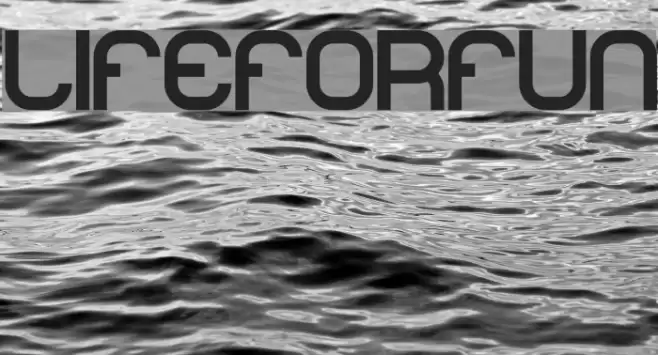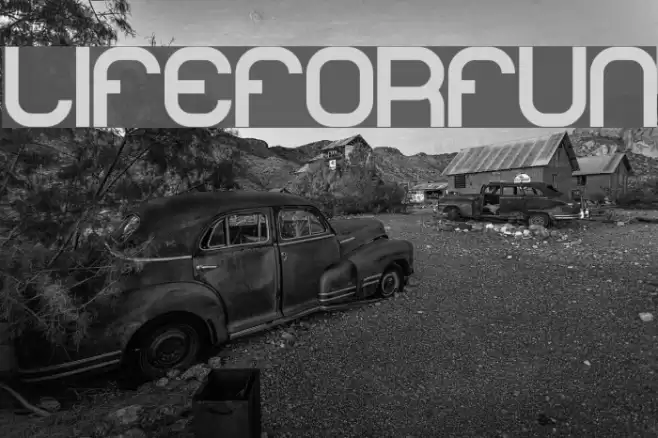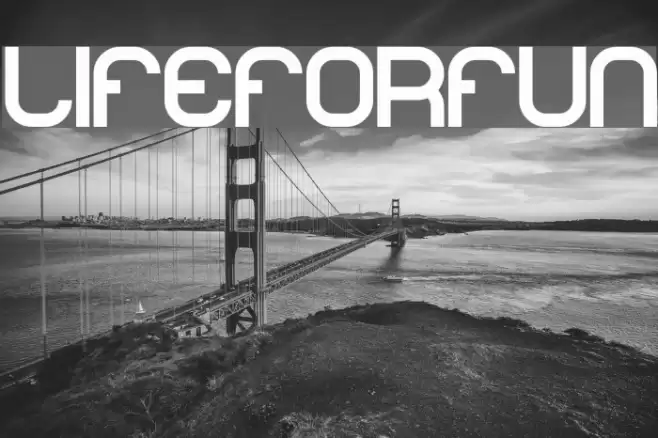
lifeforfun Font
lifeforfun Description
This font features a modern and futuristic design with a geometric structure. The characters are composed of bold, rounded lines that create a sense of continuity and flow. The uppercase letters have a uniform height, while the lowercase letters maintain a consistent style, enhancing readability. The numerals are designed to match the overall aesthetic, ensuring a cohesive look across all characters. The special characters are distinct yet harmonize with the rest of the font, making it versatile for various applications.
A modern, geometric font with bold, rounded lines and a futuristic style from Uncategorized fonts.
- Proposed Projects: Ideal for technology branding, futuristic posters, digital interfaces, and modern advertising campaigns.
- Overall Style: Futuristic
- Use Case: Headlines, Logos, Digital Interfaces